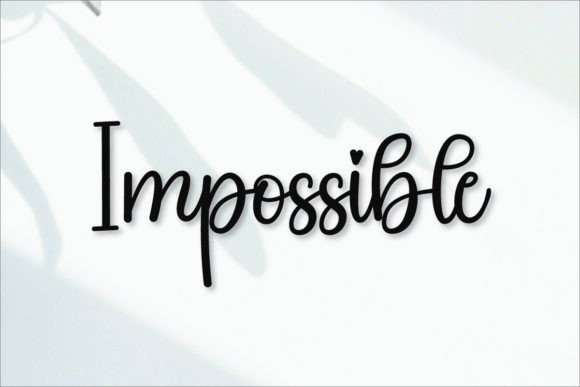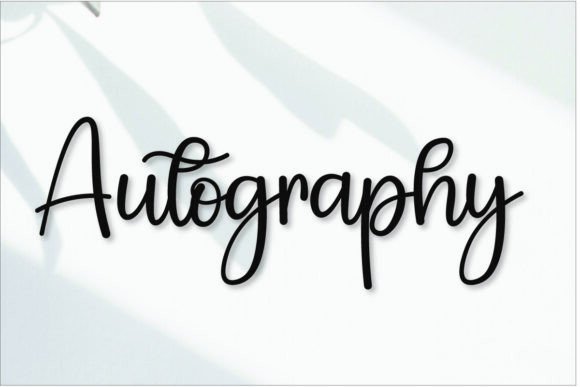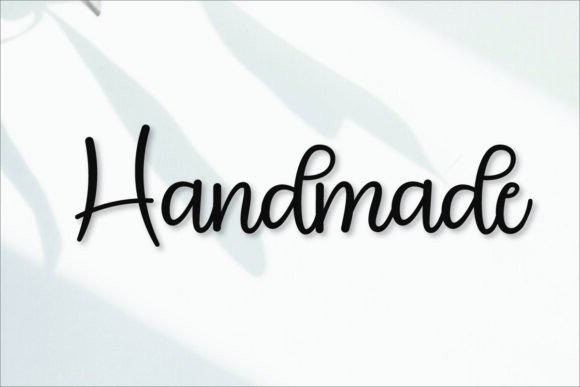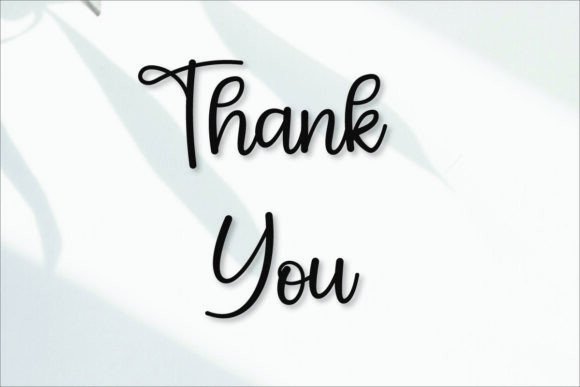
Insurance Font – Free Download
Introduction to Insurance Font
Insurance is a stylish and very elegant script font.
Looks stunning on wedding invitations, thank you cards, quotes, greeting cards, logos, business cards and any other design that requires an elegant handwritten touch .
Key Features of Insurance Font